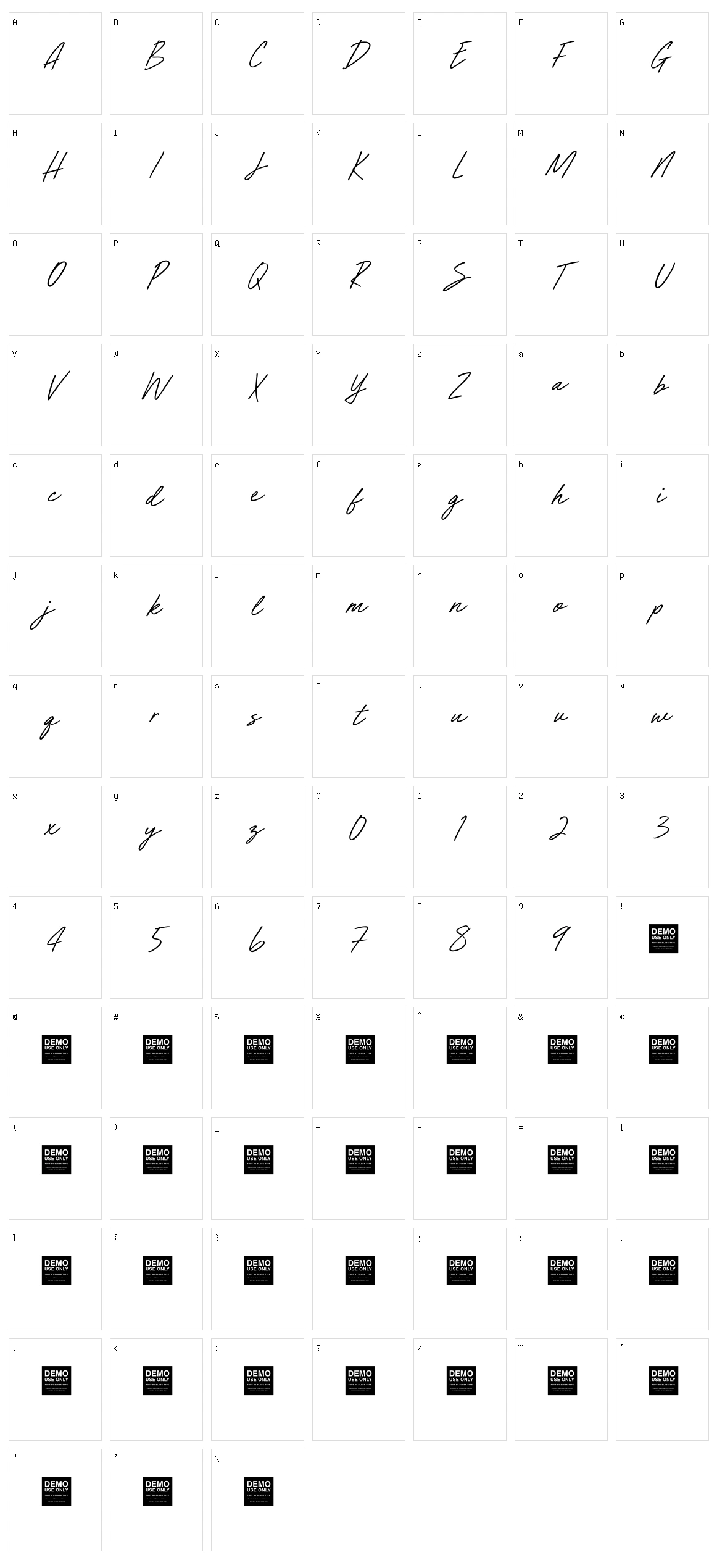
The free font Simulate Minds is carefully designed by BLKBK Fonts, showcasing a thoughtful balance of creativity and usability and falls under the Script font style. When you download the ZIP file, it contains only 25.34 KB of font files, making it lightweight and quick to download. Please review the license details below to understand permitted usage and distribution rights. If license information is not available, we recommend using this font for personal projects only or contacting the author directly for commercial usage permissions.